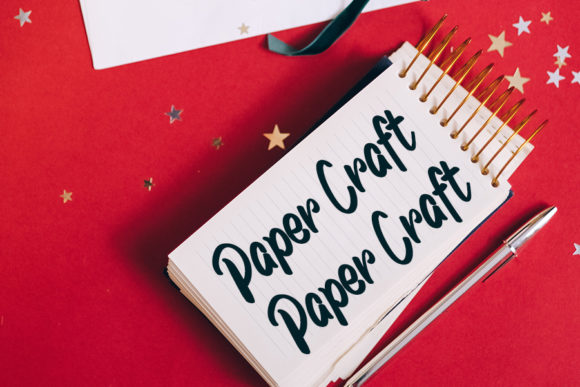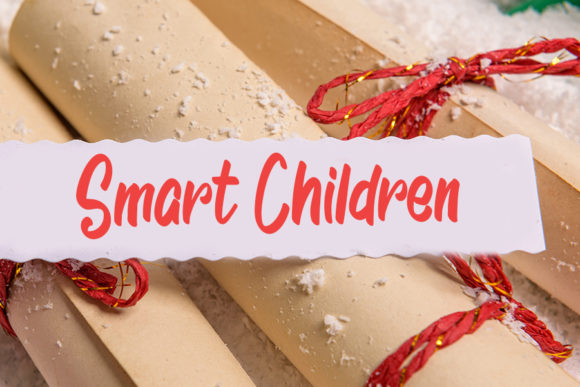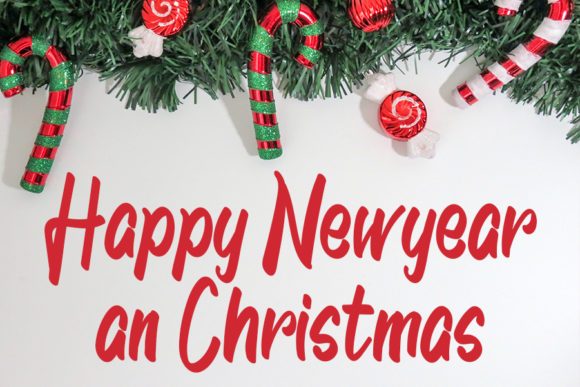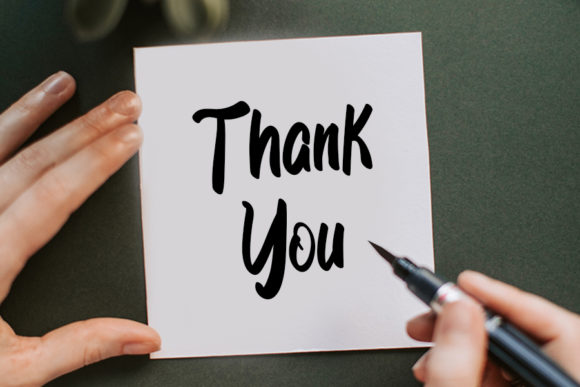
Hello Farmhouse Font: The Perfect Addition to Your Design Arsenal
Are you a designer or crafter looking for a font that exudes warmth and friendliness? Look no further than the Hello Farmhouse Font. This beautiful cursive and clean handwritten font is perfect for a variety of design projects that require a personal touch. In this article, we’ll dive into the features and benefits of Hello Farmhouse Font, and explore how it can elevate your designs.
What is Hello Farmhouse Font?
Hello Farmhouse Font is a stunning cursive and clean handwritten font that is designed to bring a touch of warmth and personality to your designs. With its elegant and flowing lines, this font is perfect for creating beautiful and eye-catching designs that require a friendly style. Whether you’re working on a card, wedding invitation, logo, or any other design project, Hello Farmhouse Font is sure to impress.
Key Features of Hello Farmhouse Font
- Cursive and Clean Handwritten Style: Hello Farmhouse Font boasts a beautiful cursive and clean handwritten style that is perfect for creating elegant and sophisticated designs.
- Versatile: This font is incredibly versatile and can be used on a wide range of design projects, from cards and weddings to logos and more.
- Easy to Read: The clean and flowing lines of Hello Farmhouse Font make it easy to read, even at small sizes.
- Unique and Eye-Catching: With its unique and elegant style, Hello Farmhouse Font is sure to grab attention and leave a lasting impression.
Benefits of Using Hello Farmhouse Font
So, why should you choose Hello Farmhouse Font for your design projects? Here are just a few benefits of using this amazing font:
- Adds a Personal Touch: Hello Farmhouse Font adds a personal touch to your designs, making them feel more approachable and friendly.
- Perfect for Wedding and Card Designs: The elegant and cursive style of Hello Farmhouse Font makes it perfect for wedding invitations, cards, and other special occasion designs.
- Great for Logos and Branding: With its unique and eye-catching style, Hello Farmhouse Font is also great for logos and branding projects that require a friendly and approachable feel.
- Easy to Pair with Other Fonts: Hello Farmhouse Font pairs well with a wide range of other fonts, making it easy to create beautiful and harmonious design combinations.
How to Use Hello Farmhouse Font in Your Designs
Using Hello Farmhouse Font in your designs is easy. Here are a few tips to get you started:
- Pair it with a Bold Font: Pair Hello Farmhouse Font with a bold font for a striking contrast that adds visual interest to your design.
- Use it for Headings and Titles: Use Hello Farmhouse Font for headings and titles to add a touch of elegance and sophistication to your design.
- Add it to Your Wedding Designs: Hello Farmhouse Font is perfect for wedding invitations, save-the-dates, and other special occasion designs.
- Experiment with Different Colors: Experiment with different colors and textures to add depth and interest to your design.
Hello Farmhouse Font is a beautiful and versatile font that is perfect for designers and crafters looking to add a touch of warmth and friendliness to their designs. With its elegant and cursive style, this font is sure to impress on a wide range of design projects, from cards and weddings to logos and more. Whether you’re a seasoned designer or just starting out, Hello Farmhouse Font is a great addition to your design arsenal.